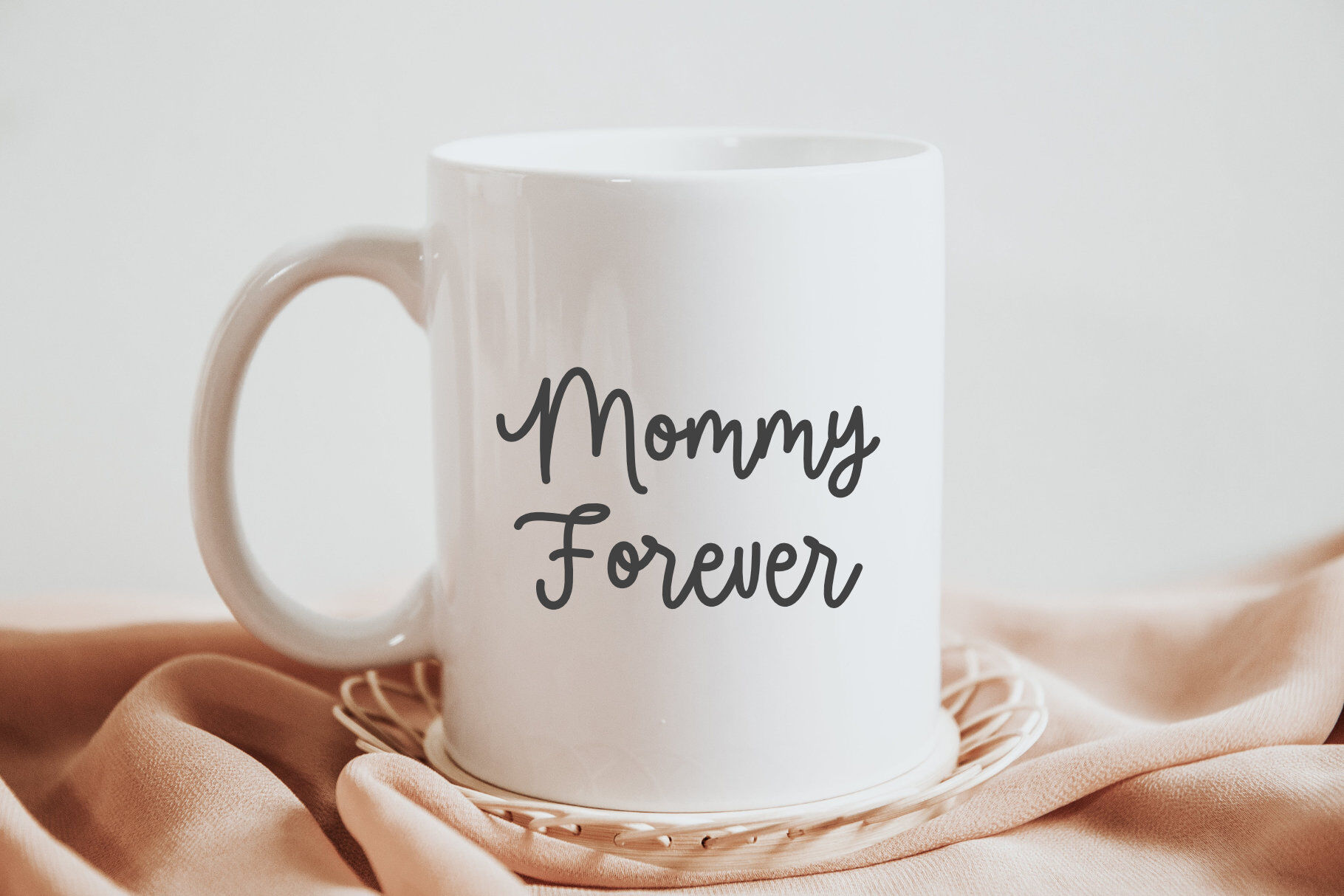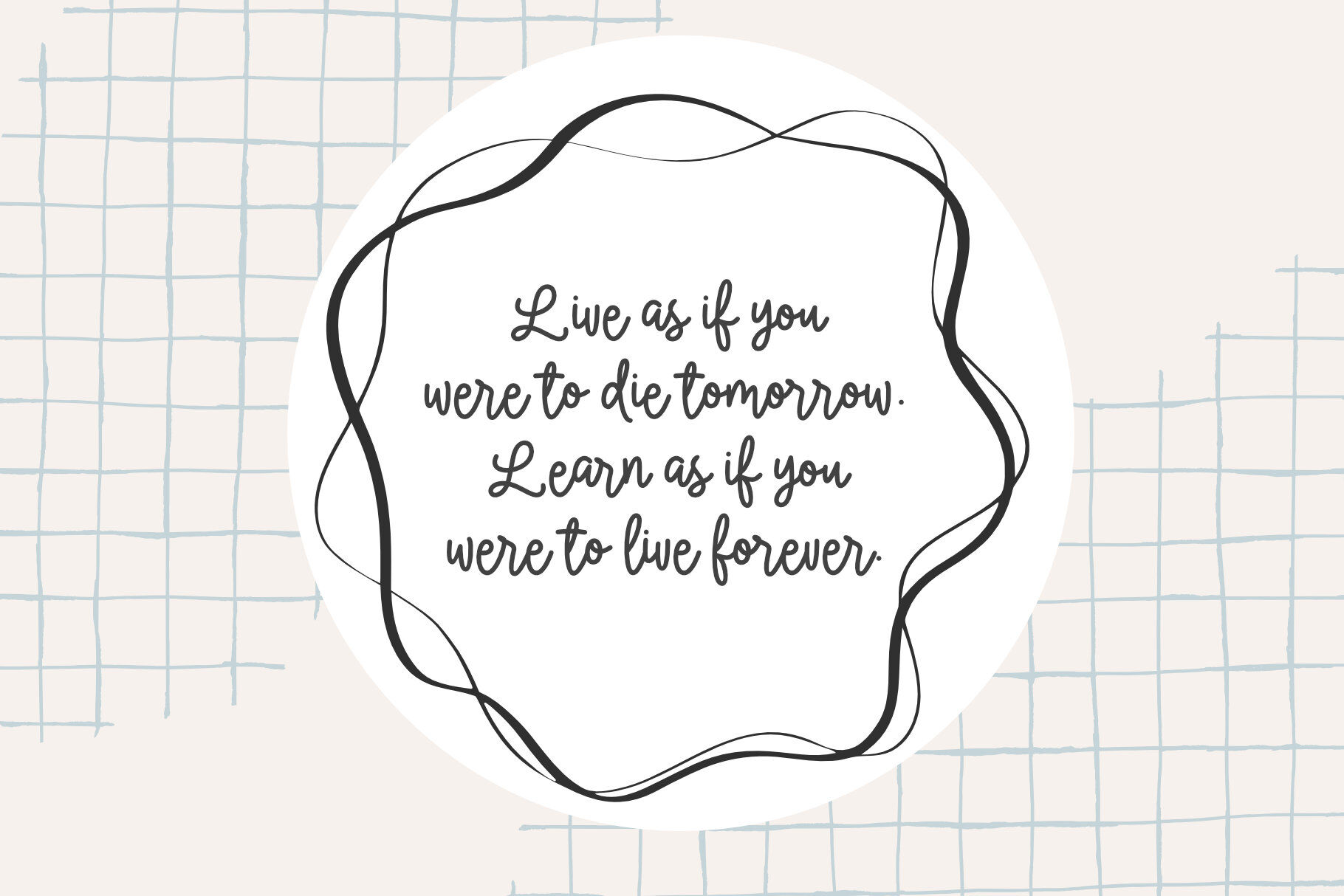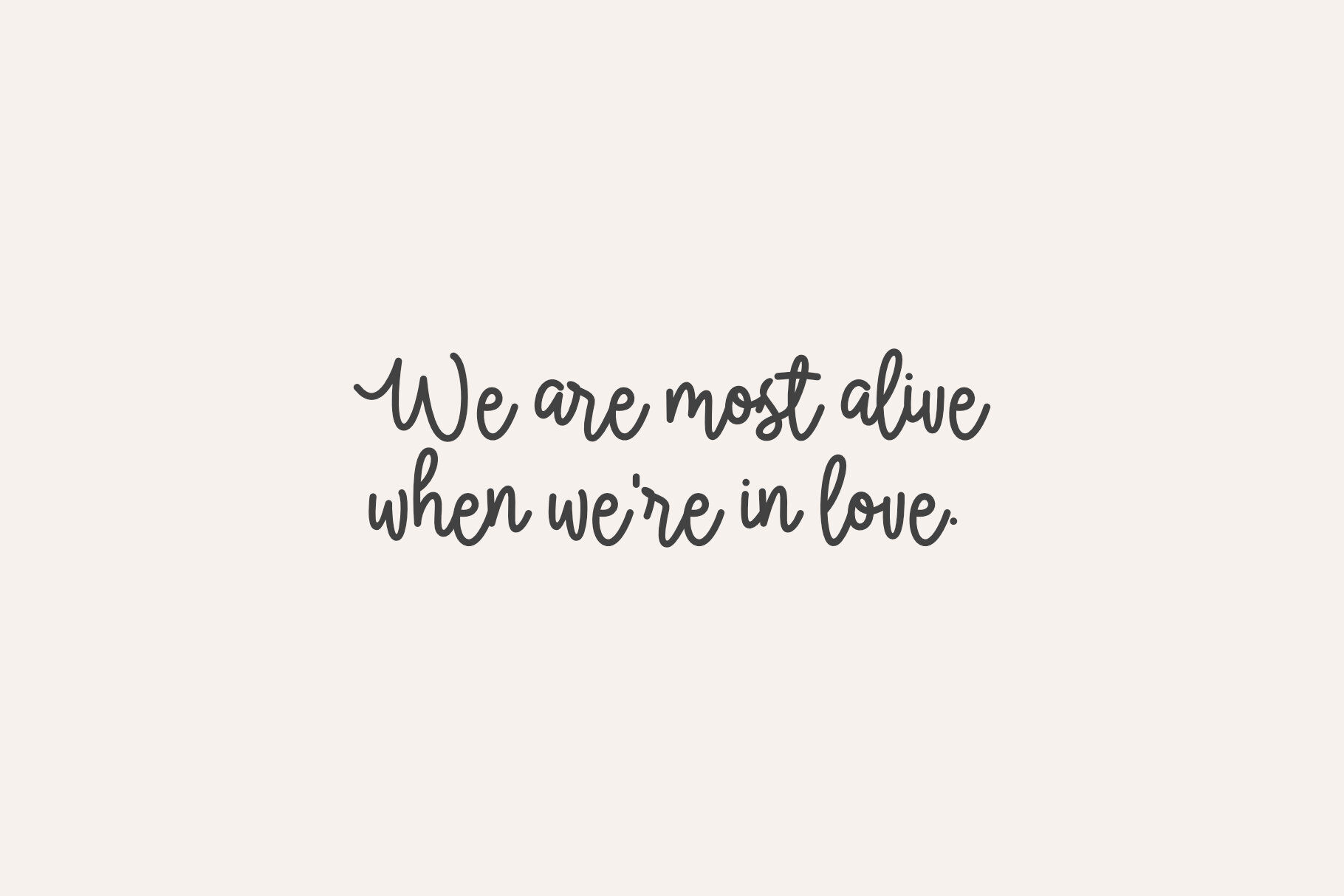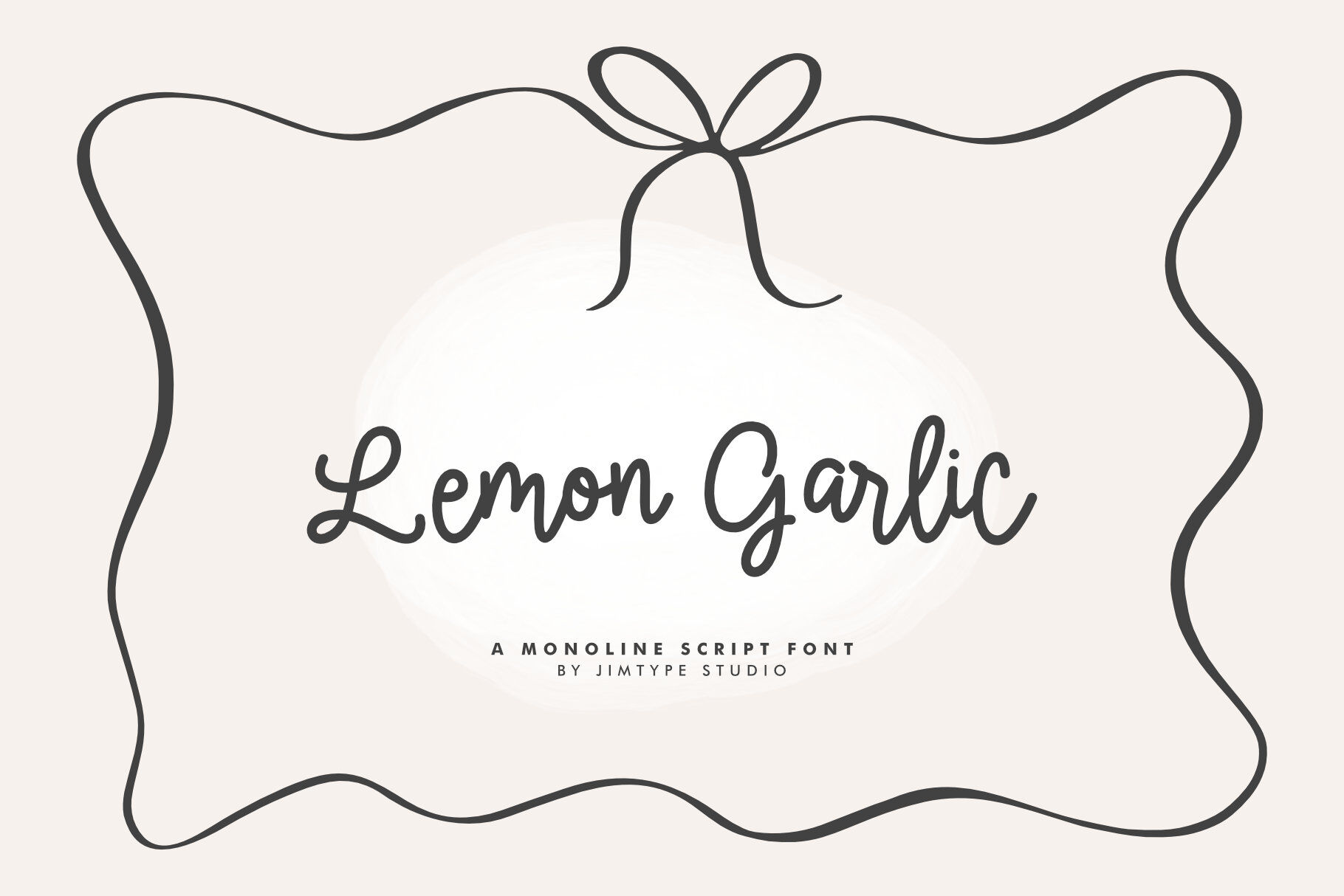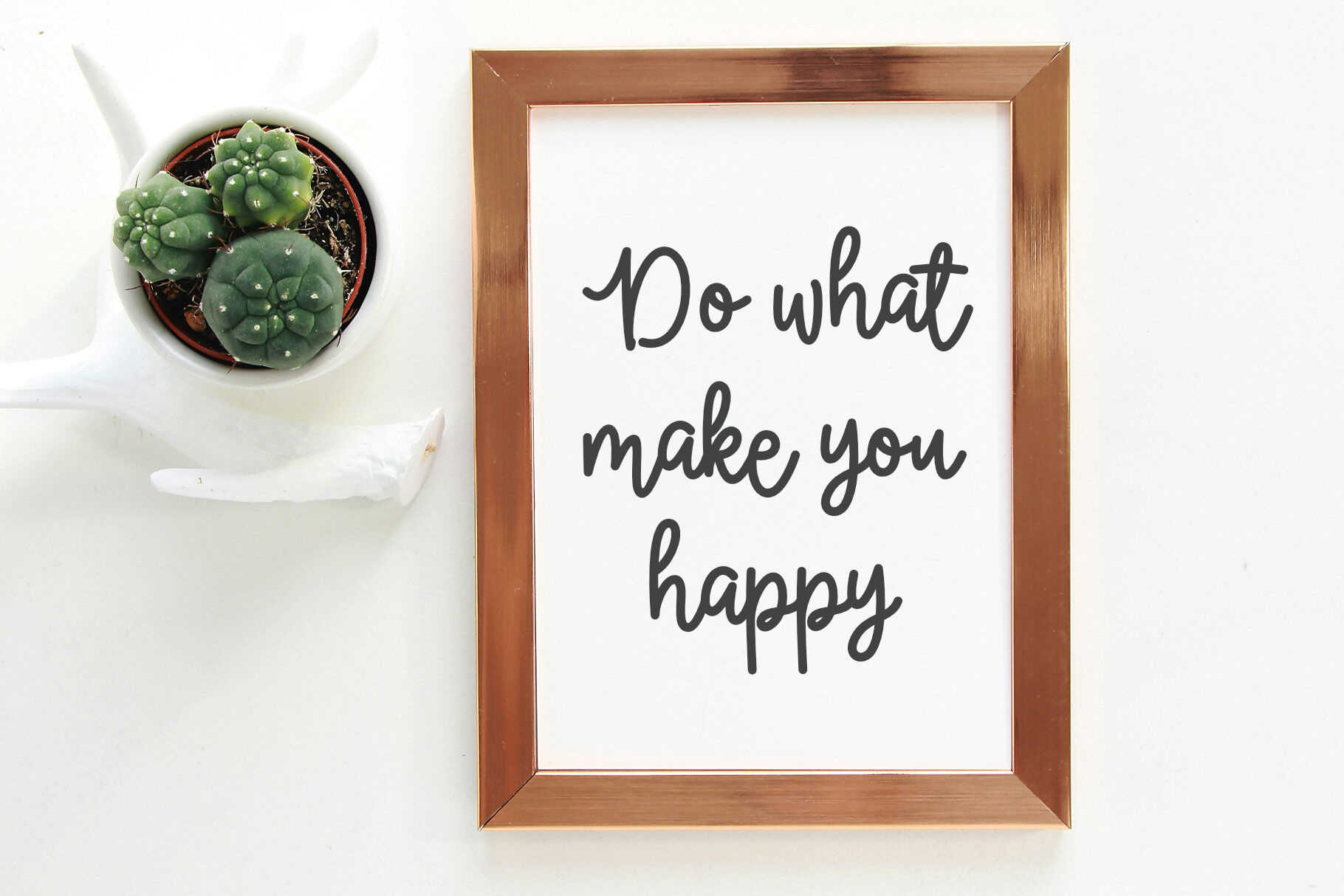
Lemon Garlic - Handwritten Font
Say Hello to Lemon Garlic Font!   A charming and beautiful script font, this font is perfect for casual branding, quotes, social media, web, greeting cards, trendy prints, fun wedding stationery, and various designs.   Inside the File: Lemon Garlic Font (OTF, TTF, WOFF, WOFF2)   Thank you so much We hope you enjoy and are happy creating! ~ Jimtype Studio